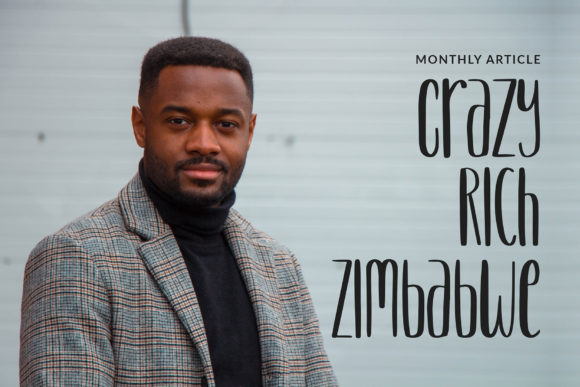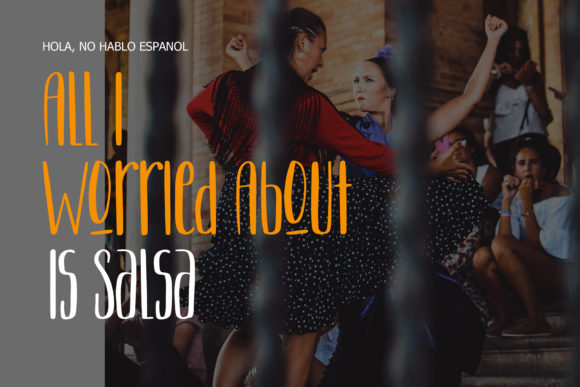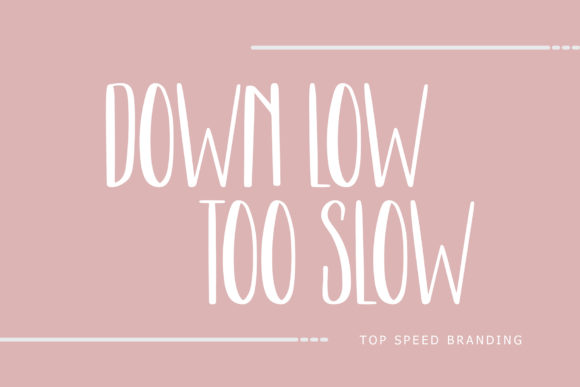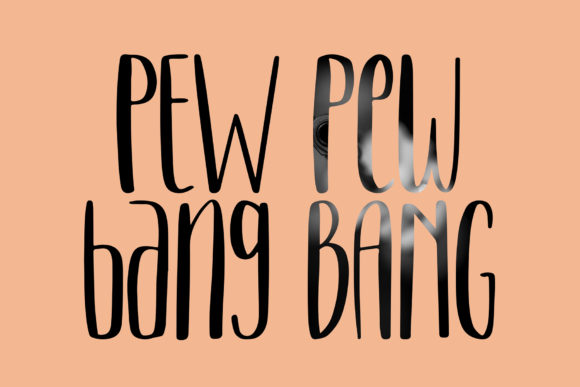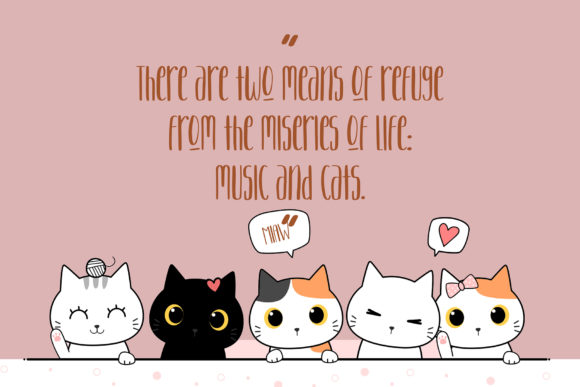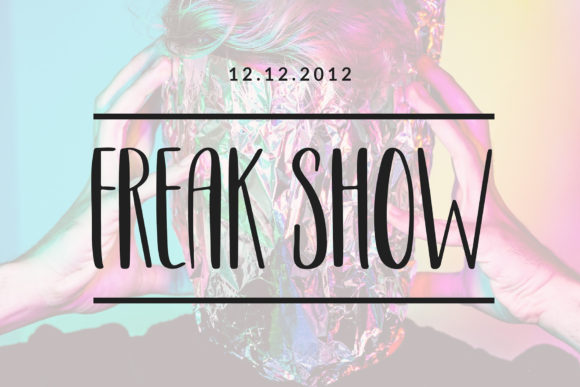
Introduction to Kitten Lover Font
Have you ever stumbled upon the perfect design element that elevates your entire creative project? It’s like hitting the jackpot – all your ideas suddenly come together in perfect harmony. For me, that moment was when I discovered the Kitten Lover Font. Its adorable, quirky charm instantly adds a touch of whimsy to any design, making it a must-have resource for designers.
As a design enthusiast, I can attest to the value of having high-quality, versatile fonts like Kitten Lover Font in your arsenal. With its transparent background and free download availability, this font is perfect for adding a playful twist to your designs. Whether you’re working on a personal project or a client’s brief, Kitten Lover Font is sure to bring a smile to your face and make your design stand out.
Key Features of Kitten Lover Font
- High-quality, cute design resource perfect for creative projects, including invitations, posters, and social media graphics.
- Features a transparent background, allowing for easy layering and customization in your design projects.
- Includes a range of adorable kitten-inspired glyphs, making it ideal for cat lovers and enthusiasts.
- Available in a single font size, making it easy to use across various design projects and platforms.
- Designed to be highly legible, even at small font sizes, ensuring your message is conveyed clearly and effectively.
Honest Review: Kitten Lover Font
I recently stumbled upon the Kitten Lover Font while searching for a unique design resource for my next creative project. As a designer, I’m always on the lookout for high-quality fonts that can add a touch of personality to my work.
After downloading and experimenting with the font, I have to say that I’m impressed with its overall quality. The Kitten Lover Font is perfect for designers who want to add a playful and whimsical touch to their designs. The font comes with a transparent background, making it easy to combine with other design elements.
Here are some things that work well with the Kitten Lover Font: ✨ High-quality design, ✨ Unique and playful style, ✨ Easy to use and customize.
However, there are a few limitations to keep in mind: ⚠️ Limited font styles and weights, ⚠️ Not ideal for formal or professional designs.
Overall, I think the Kitten Lover Font is a great addition to any designer’s toolkit, especially for creative projects that require a fun and playful touch. It’s a free download, making it an excellent resource for designers on a budget.
- Perfect for creative projects and designs that require a playful touch
- High-quality design and unique style
- Easy to use and customize
How to Use Kitten Lover Font
The Kitten Lover Font is a unique and playful design resource perfect for creative projects. Its high-quality, whimsical style makes it an ideal choice for designers looking to add a touch of personality to their work.
Tips for Getting the Most Out of the Kitten Lover Font
To maximize the impact of the Kitten Lover Font, use it on a transparent background to make the text stand out. Experiment with different font sizes and colors to create a visually appealing design.
The Kitten Lover Font is perfect for:
- Baby shower invitations
- Kitten-themed merchandise
- Children’s book illustrations